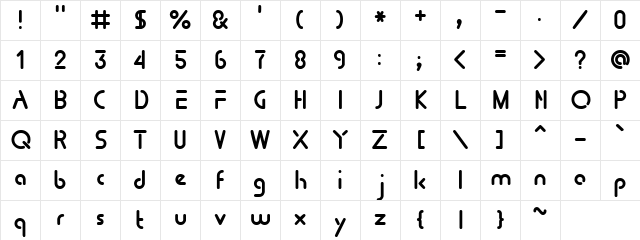
Tomorrow People Regular
Design Context for Tomorrow People
Tomorrow People is a composed and adaptable typeface that performs quietly and consistently across a wide range of design contexts.